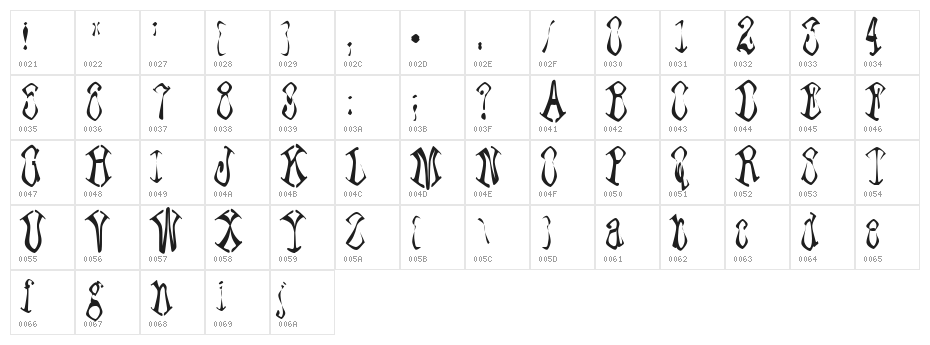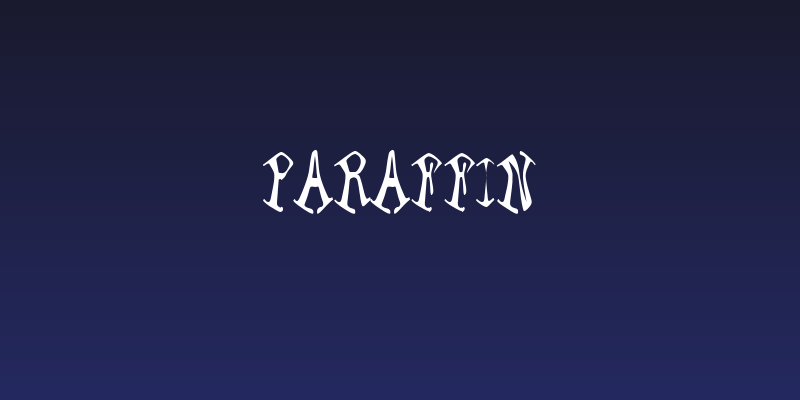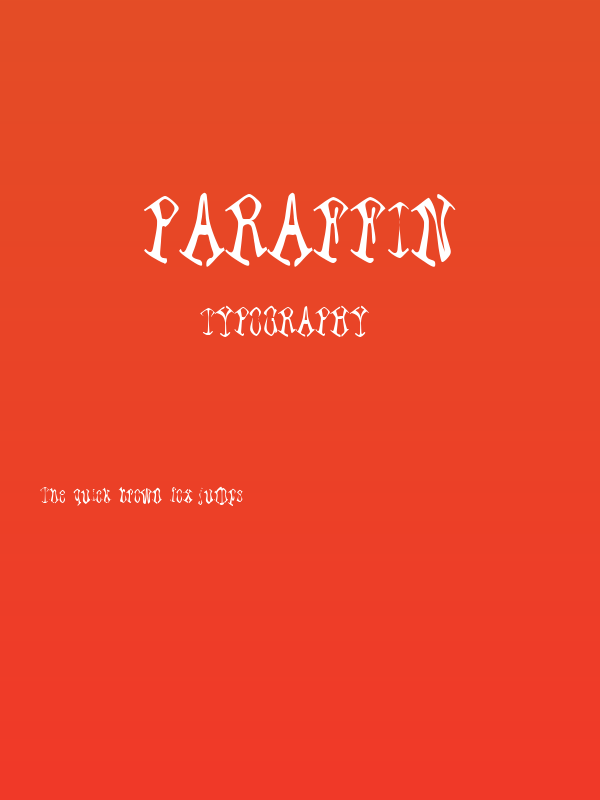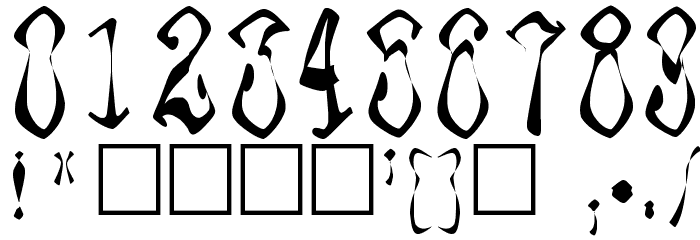
Paraffin Font
Paraffin Description
This font features a highly decorative and artistic style, characterized by its bold and dramatic strokes. The letters have a unique, almost gothic appearance with sharp angles and intricate details. The uppercase and lowercase letters maintain a consistent design, with exaggerated serifs and a flowing, calligraphic influence. The numbers and special characters follow the same ornate style, making the font suitable for creative and expressive projects. Its distinctiveness makes it stand out, ideal for capturing attention in various design contexts.